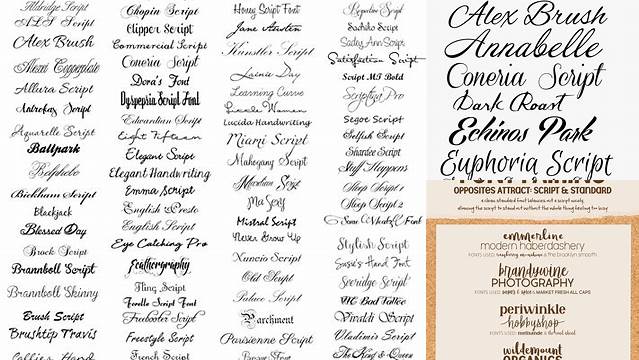
Script Fonts In Word: A Comprehensive Guide
Hey everyone! Ever wondered about those fancy, elegant fonts you see in invitations, logos, and other designs? Well, they're called script fonts, and if you're a Word user, you're in luck! This guide will dive deep into everything you need to know about script fonts in Word, from what they are, how to use them, and even some cool tips and tricks to make your documents stand out. So, buckle up, because we're about to embark on a font-tastic journey!
Understanding Script Fonts: The Basics
So, what exactly are script fonts? Think of them as fonts that mimic handwriting. They're designed to look like they were written with a pen, brush, or other writing instrument, giving your text a touch of personality, elegance, or even a playful vibe. The beauty of script fonts in Word lies in their versatility; they can be used in various applications, from creating stunning invitations and personalized stationery to adding a unique flair to your marketing materials and social media posts. There are different types of script fonts, each with its own unique characteristics, ranging from formal and flowing to casual and whimsical. Some script fonts are connected, meaning the letters are designed to flow seamlessly together, while others are disconnected, with each letter appearing separately. The choice of script font depends on the desired aesthetic and the overall message you want to convey. Understanding the different types of script fonts and their specific characteristics is essential for selecting the perfect font for your project. You might encounter fonts with elegant serifs, adding a traditional feel, or modern, clean scripts that are perfect for contemporary designs. The beauty of using script fonts in Word is that you have a wide range of options right at your fingertips, allowing you to experiment and find the ideal match for your project's needs.
When you're choosing a script font, consider the context in which you'll be using it. For example, a formal wedding invitation might call for an elegant, flowing script, while a casual birthday party announcement might benefit from a more playful, handwritten style. It's also important to consider the readability of the font. While script fonts can be visually stunning, they can sometimes be difficult to read, especially in small sizes or with complex designs. Make sure your chosen font is legible and easy for your audience to understand. Before you finalize your choice, it's a good idea to test the font by typing out a sample of your text. This will help you assess its readability and see how it looks in the context of your project. Experiment with different font sizes, colors, and spacing to find the perfect balance that enhances your message. The key is to strike a balance between visual appeal and legibility to ensure that your script font effectively communicates your message. Script fonts can dramatically enhance the visual appeal of your documents and projects, but they must be used with care. Remember to choose fonts that align with your brand's personality and the overall message you want to convey, creating an impact that leaves a lasting impression on your audience.
Different Types of Script Fonts: A Quick Overview
Alright, let's break down the different types of script fonts you might encounter when exploring script fonts in Word. This isn't an exhaustive list, but it gives you a good foundation to start with. First, there's the formal script style, often characterized by elegant, flowing lines and a classic feel. Think of the fonts you see on wedding invitations or formal announcements – these are a perfect example. Formal scripts often have a high degree of calligraphic influence, emulating the look of handwritten calligraphy with delicate strokes and graceful curves. They’re ideal for projects that require a touch of sophistication and tradition. Moving on, we have casual script fonts. These are more relaxed and often resemble handwriting. They tend to be less formal and can add a personal touch to your designs. Casual scripts are perfect for projects that need a friendly, approachable vibe, like birthday cards, informal invitations, or social media graphics. The lettering in these fonts often has a more organic and less structured feel, mimicking the fluidity of natural handwriting. The next category includes brush script fonts. These fonts have a textured appearance, resembling strokes made by a brush. The strokes might be thick and bold or thin and delicate, depending on the font. Brush script fonts can be great for adding a dynamic and artistic element to your designs. Consider using them when you want to evoke creativity or a sense of energy. These types of scripts are particularly popular in design projects. Finally, we have handwritten script fonts. These are designed to imitate real handwriting. They can range from simple and clean to elaborate and stylized. Handwritten scripts are incredibly versatile and can be used in various projects where you want to give the impression of something personal and crafted by hand. Whether you're designing a personalized note or a unique logo, a handwritten script can add a distinct charm to your project. Each of these script font types offers a unique aesthetic, enabling you to match your design choices perfectly to the desired tone and message of your work.